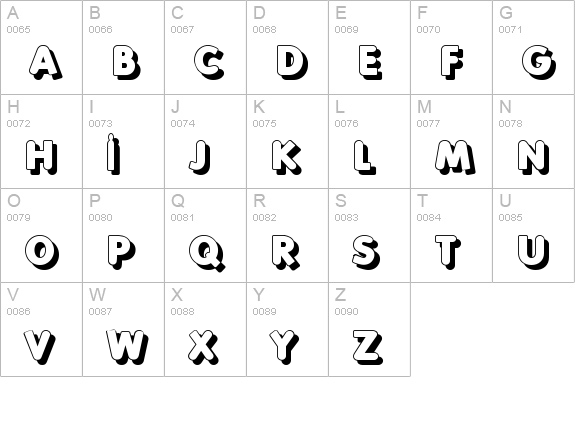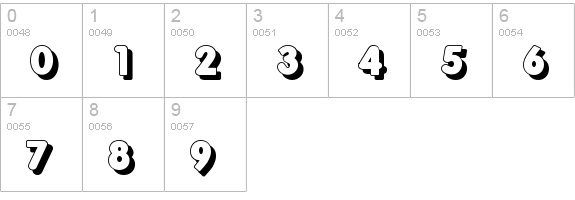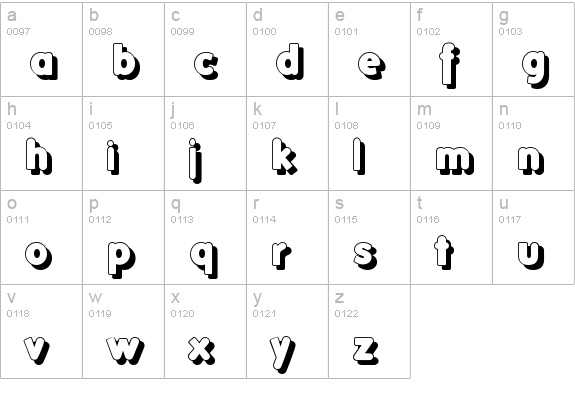
FolksShades Font Details
FolksShades font is a versatile and modern typeface that exudes a sense of sophistication and creativity. With its unique blend of elegance and playfulness, this font is perfect for a wide range of design projects, from branding to packaging to social media graphics. What sets FolksShades font apart is its free-spirited and dynamic vibe that captures attention and adds a touch of personality to any design. Its sleek lines and subtle curves create a sense of movement and fluidity, making it a standout choice for those looking to make a statement. Whether you're working on a professional project or simply want to jazz up your personal creations, FolksShades font is the perfect choice. And the best part? It's completely free to download at FontsMarket.com, so you can start using it right away without breaking the bank. Don't miss out on this fantastic font that will elevate your designs to the next level!